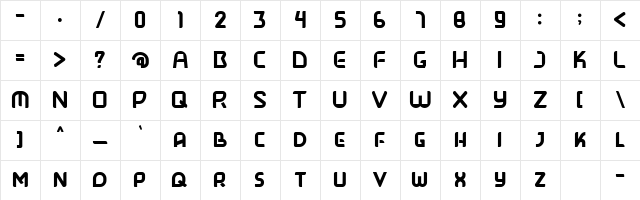
Monta Regular Font Preview
Monta Regular
Monta Regular Font Details
| Designer | Hedi Miftah |
Design Context for Monta Typeface
Monta offers clean, dependable letterforms without strong stylistic allegiance, making it a practical choice for designers who need flexibility.